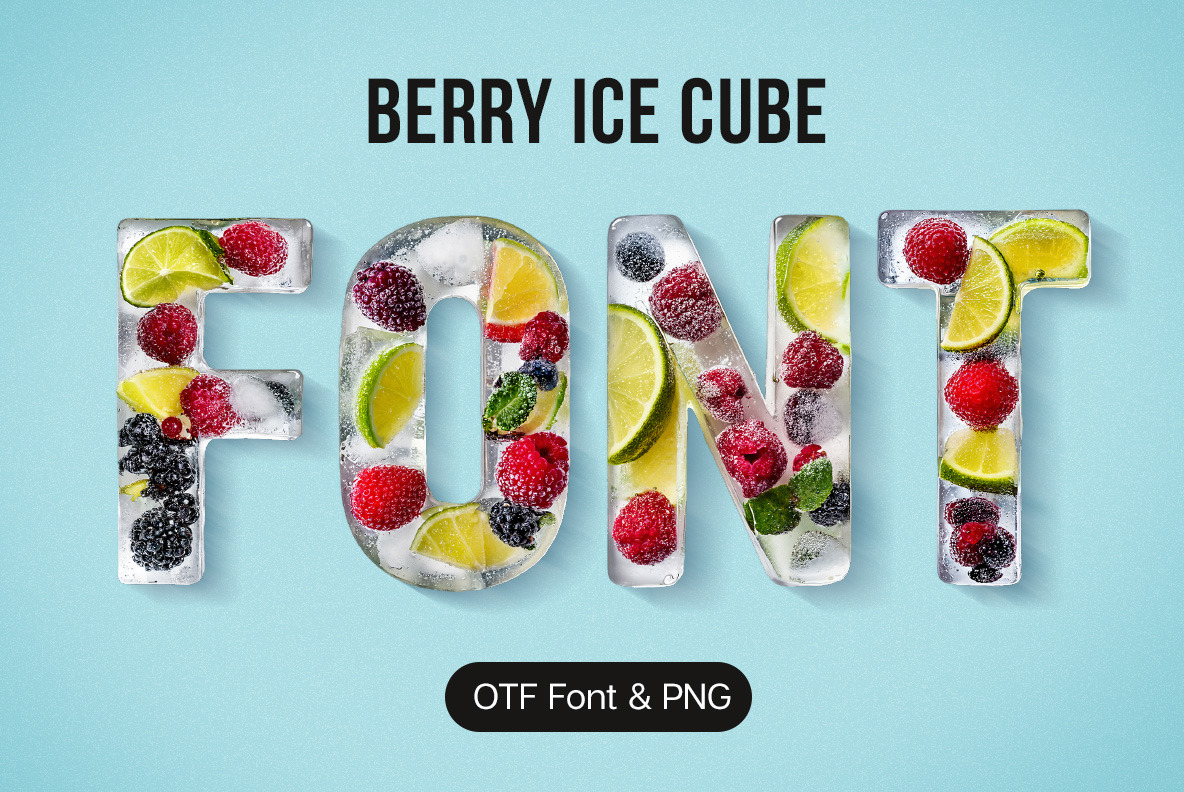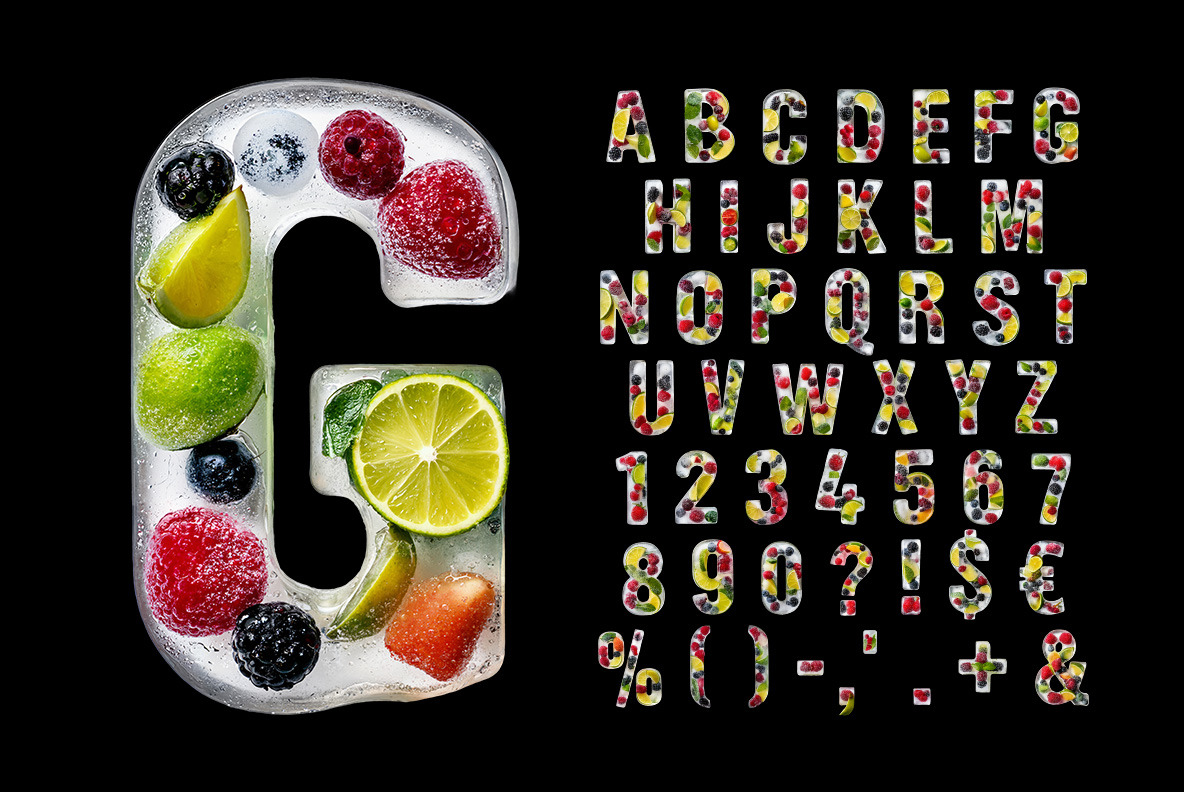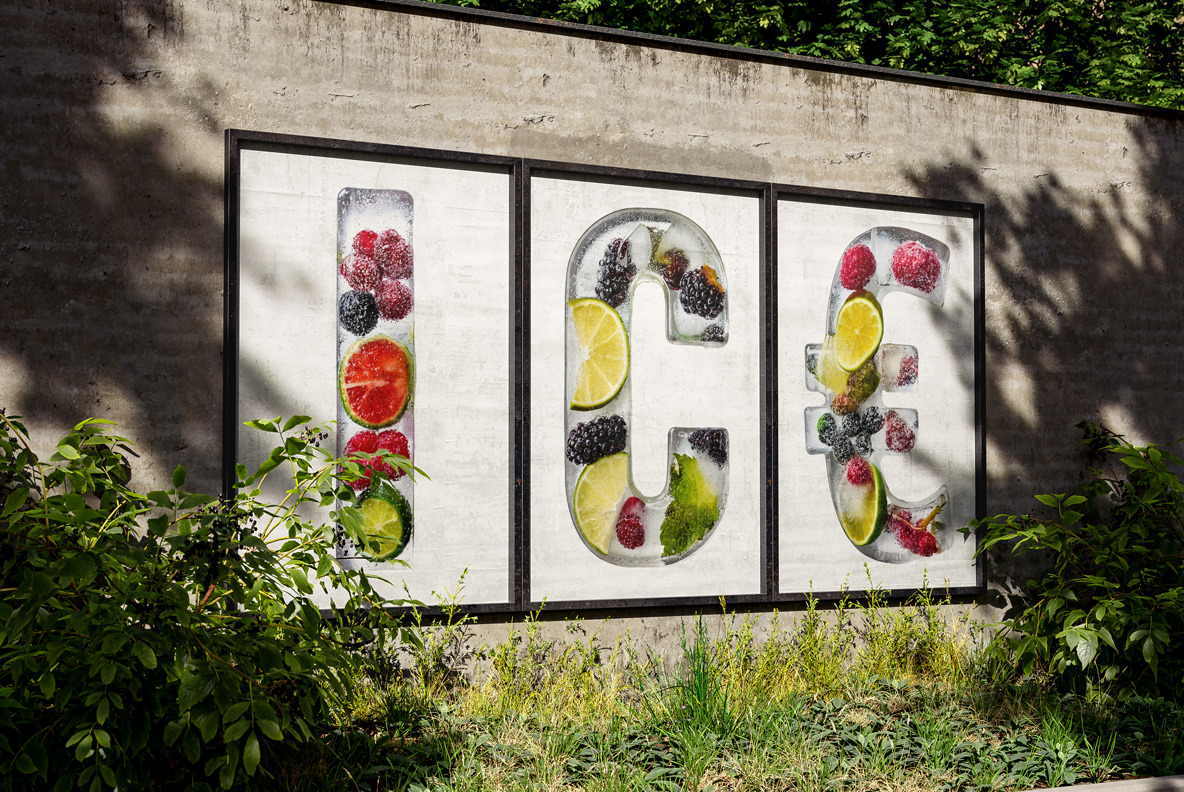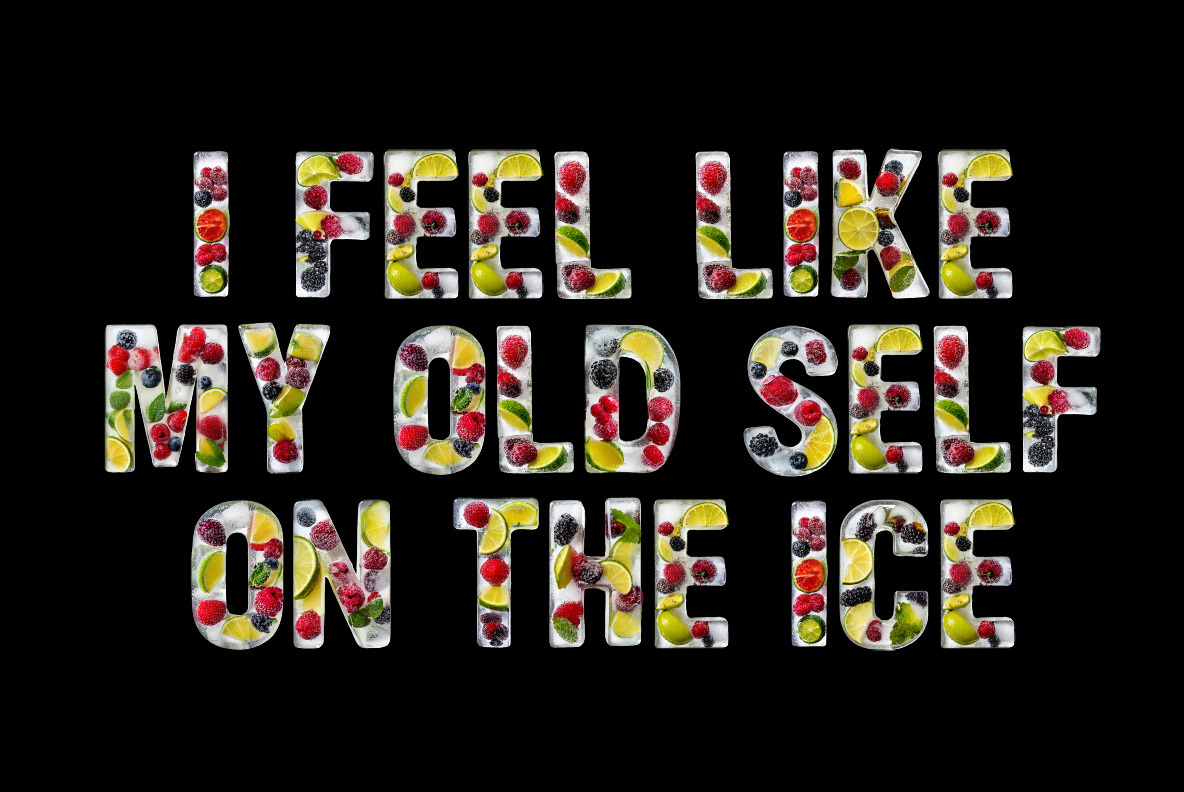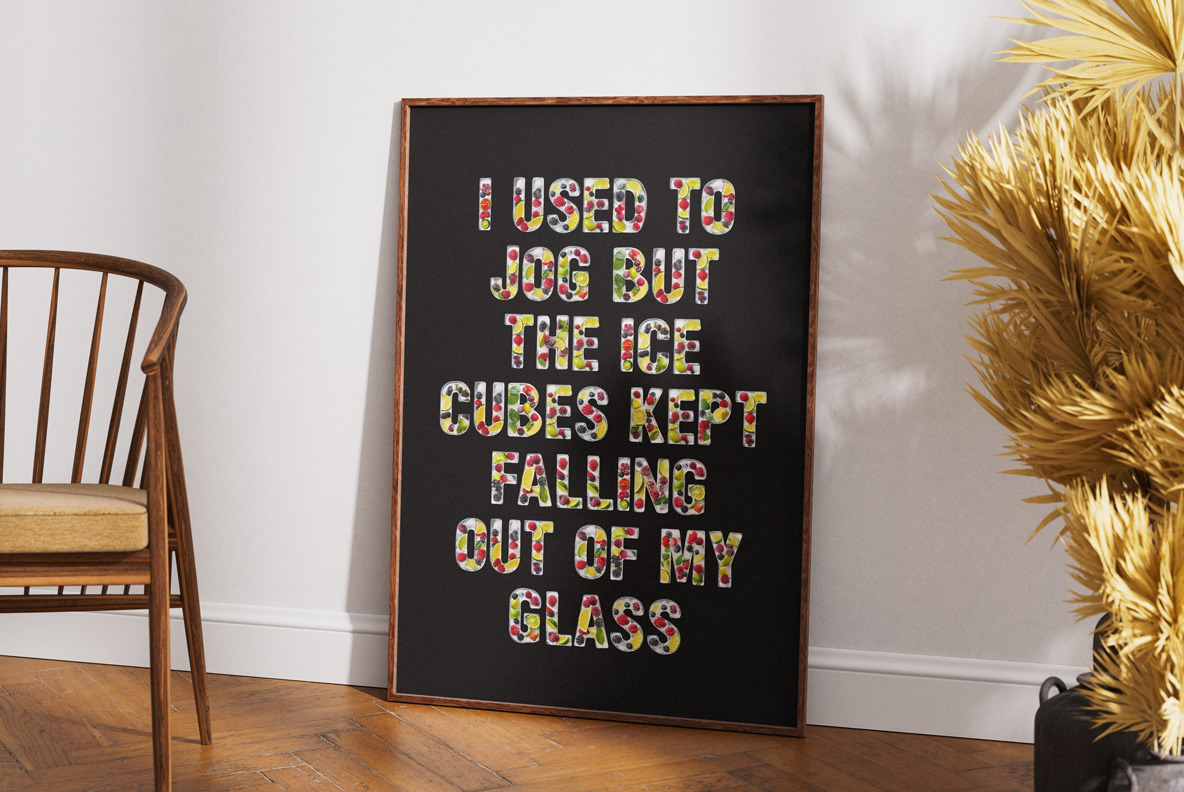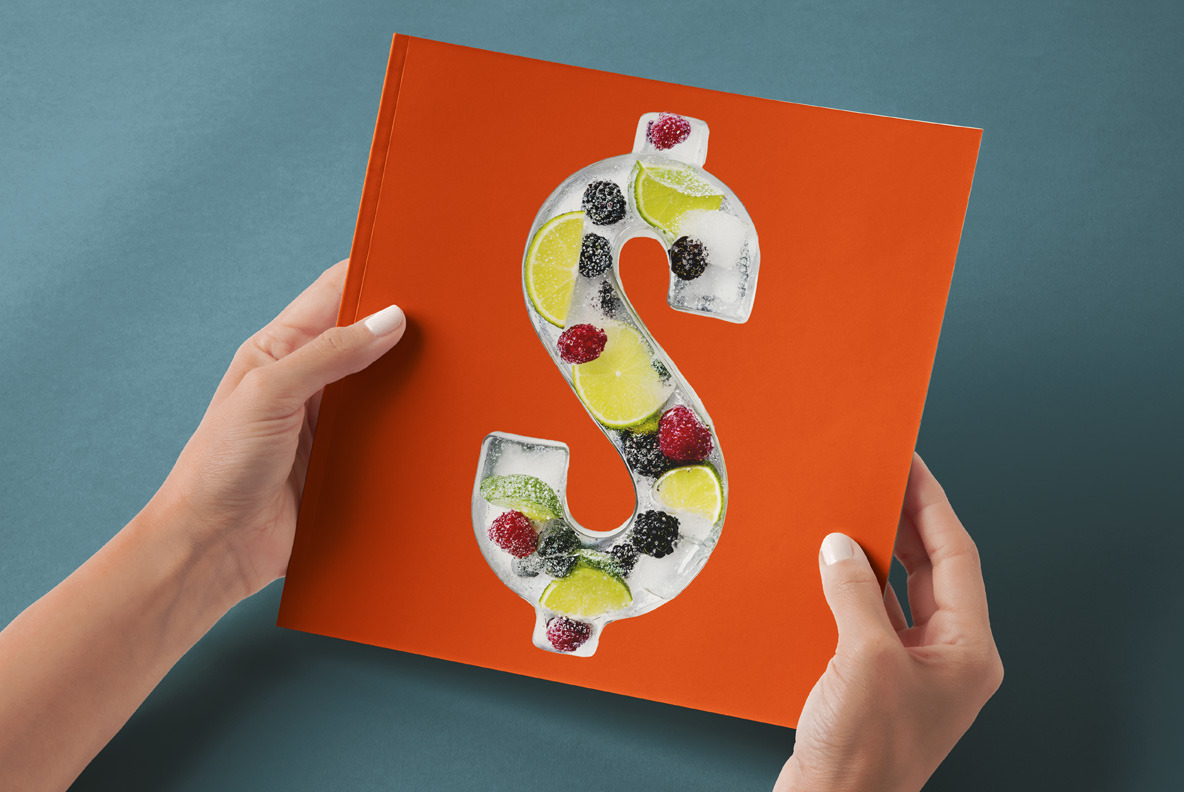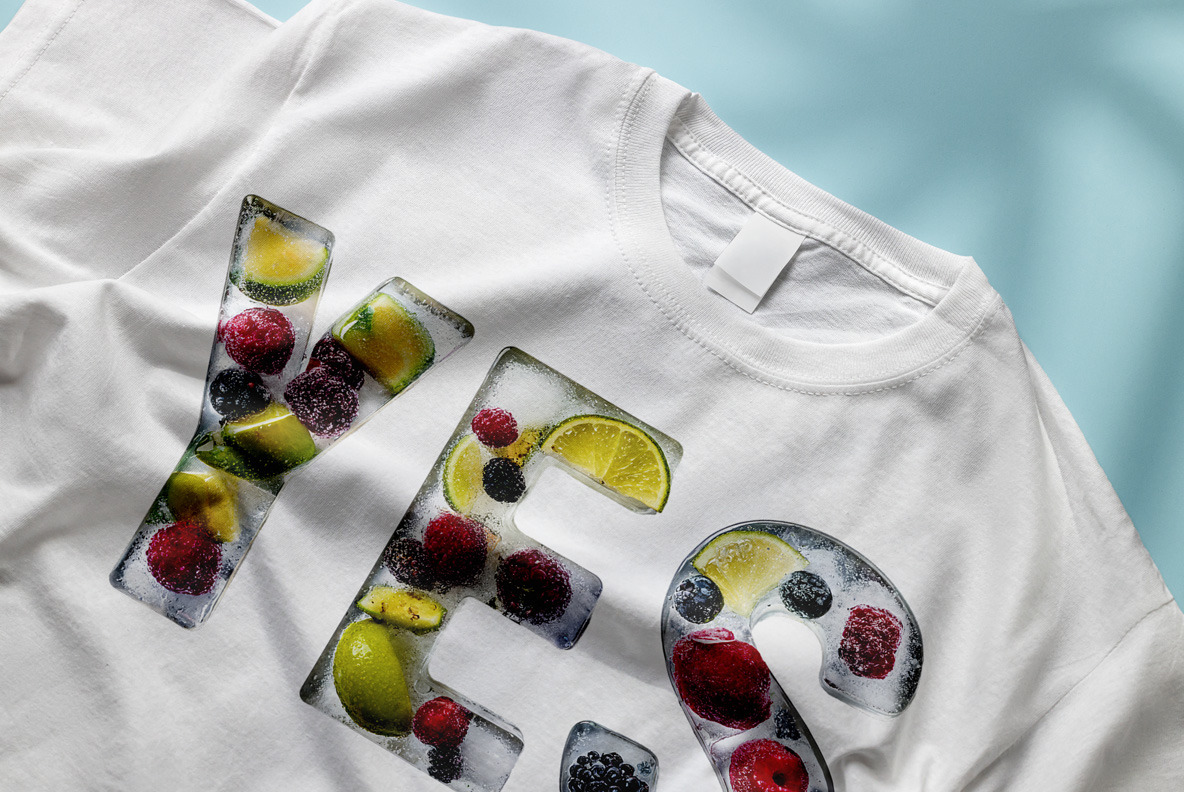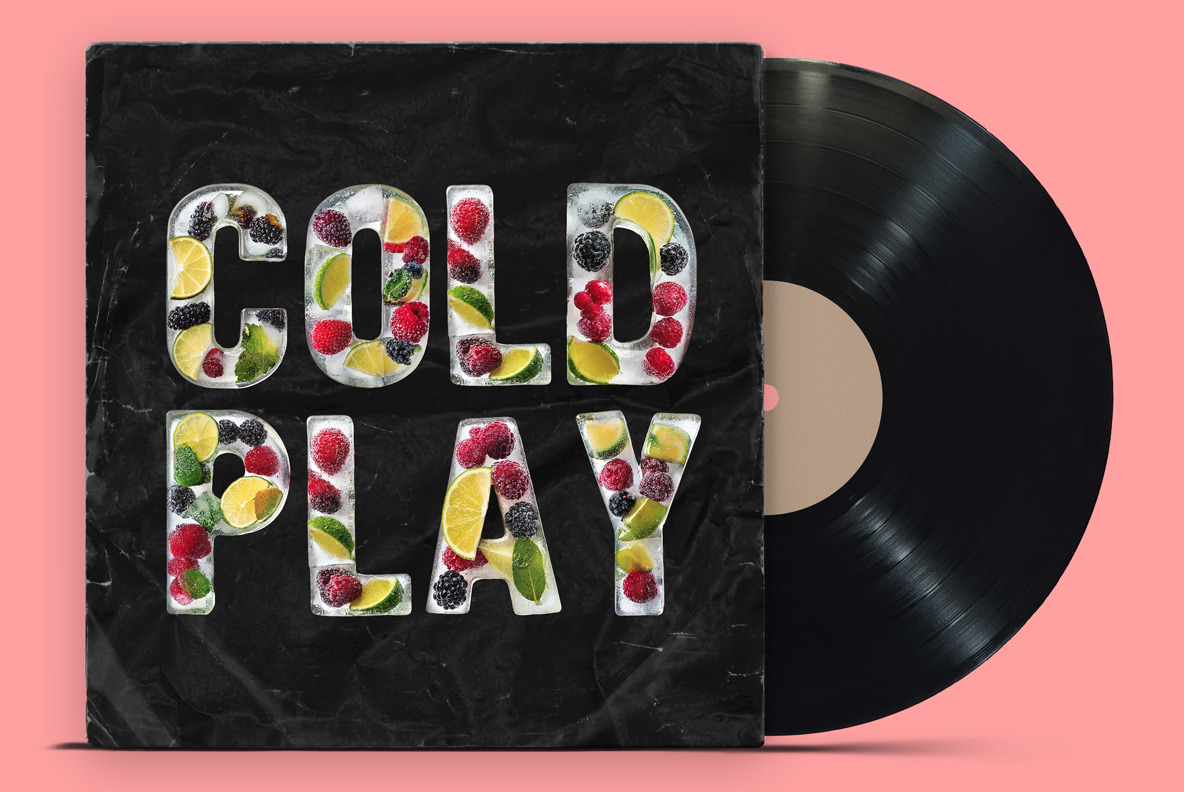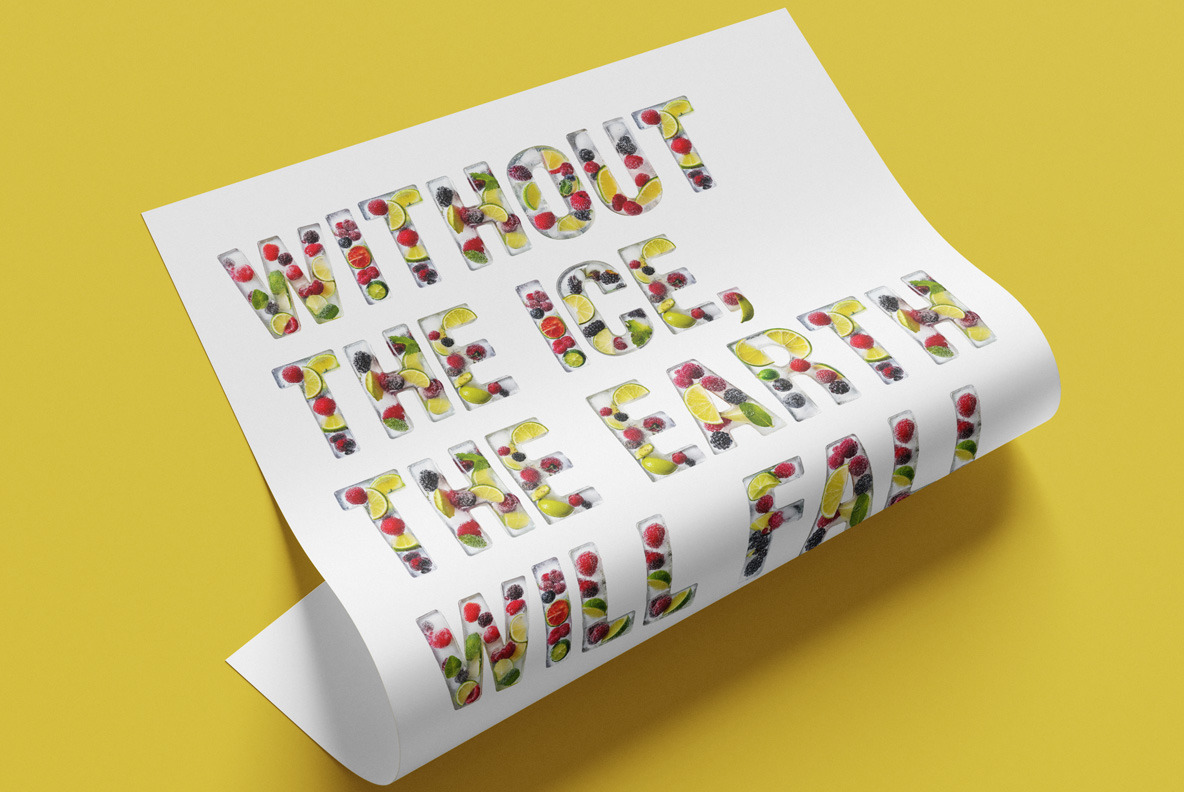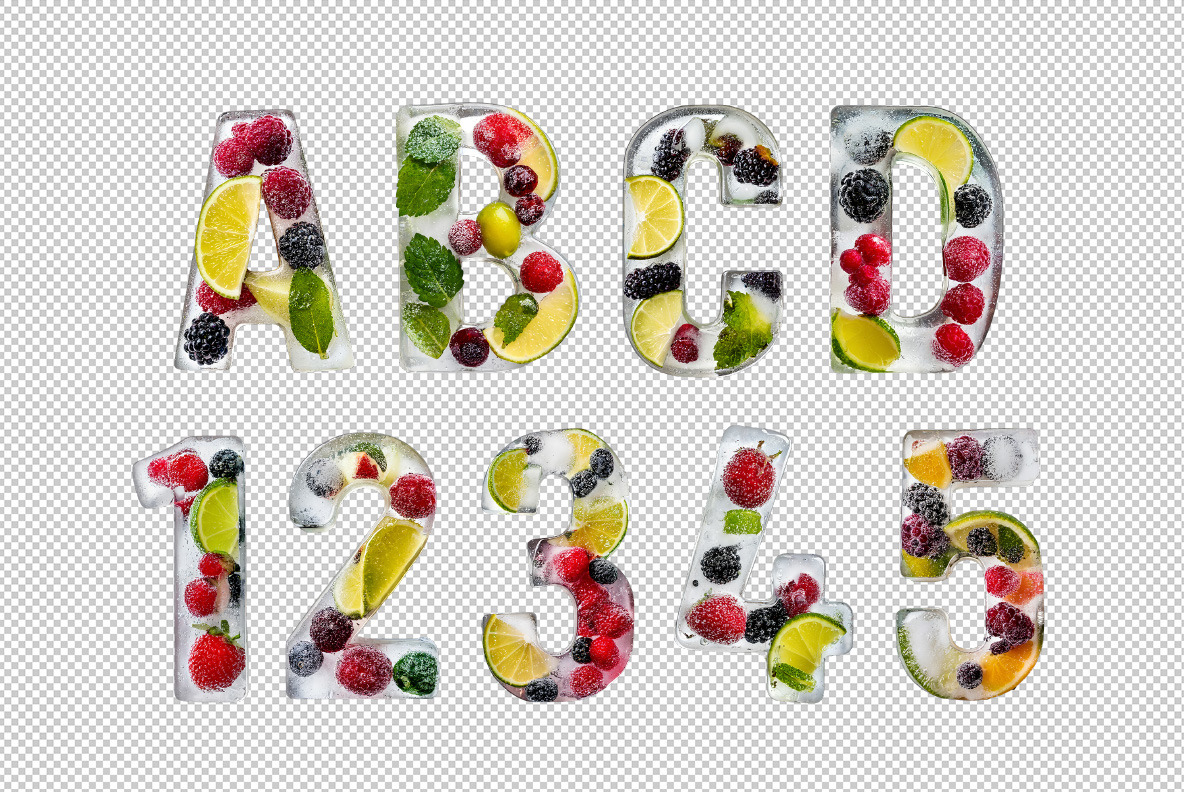
Berry Ice Cubes Font
Berry Ice Cubes Font is a refreshing and creative typeface where each letter resembles frozen fruit encased in ice cubes. Ideal for vibrant, food-themed designs, it brings a playful, chilled look to any project. Perfect for summer promotions, beverage branding, or anything needing a splash of cool creativity!
A high definition OpenType Font. Contains uppercase characters, numerals and basic punctuation. (Draw height roughly 800 pixels). All letters and glyphs that comprises this font you can see on the preview.